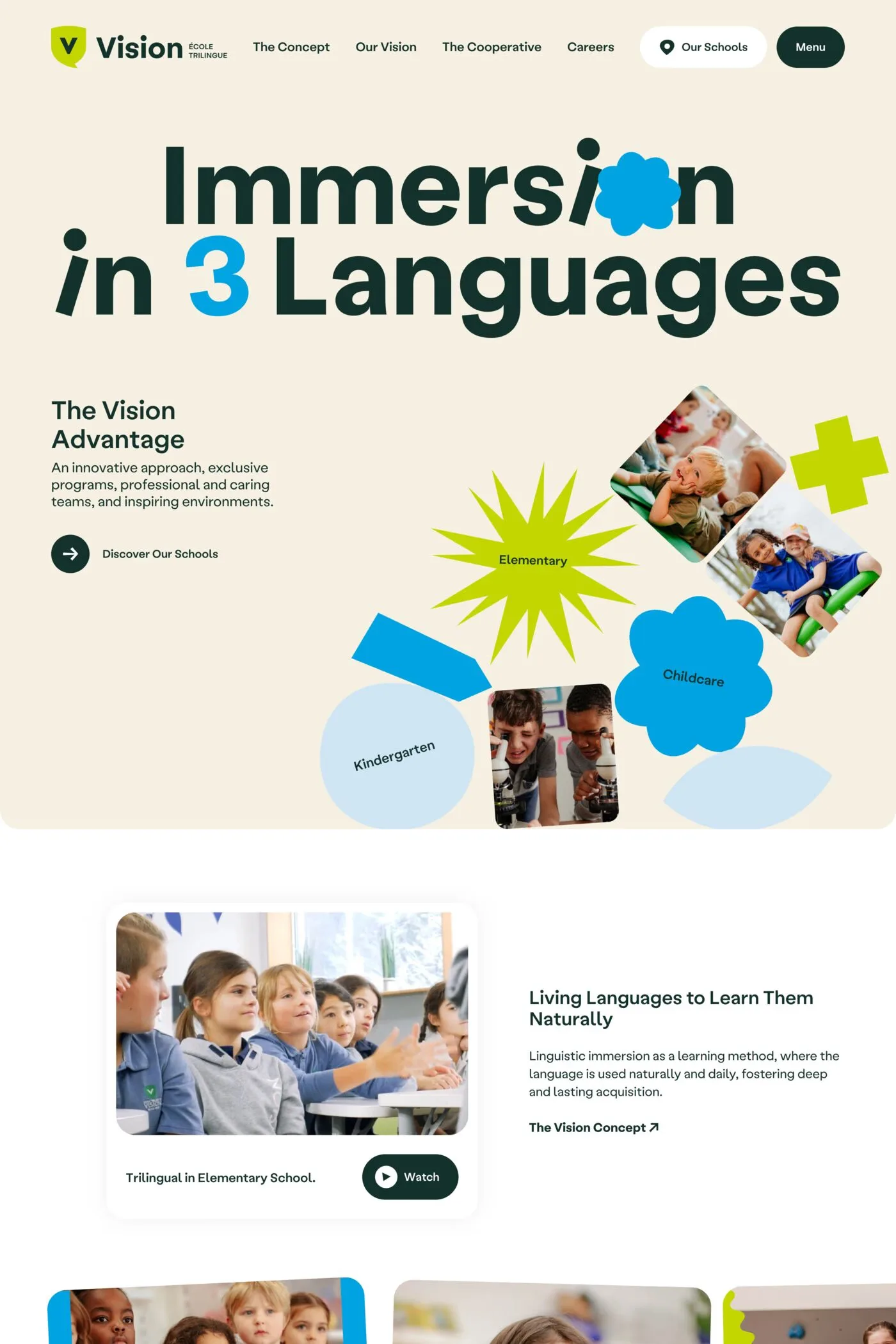
Labil Grotesk is a sans-serif typeface from KOMETA.
The first release by KOMETA bringing some much needed fresh air into the swathes of vapid sans-serifs.